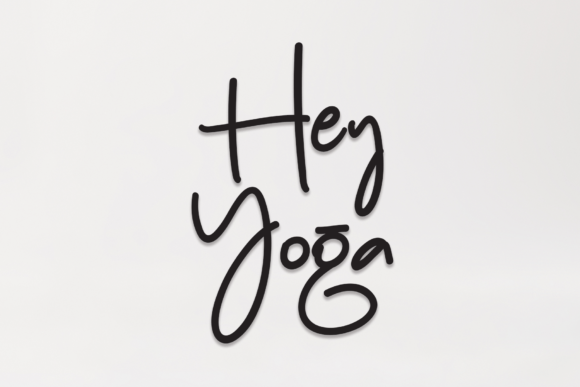
Behold, the enchanting Hey Yoga Font, a script font family that exudes elegance and charm. Designed by the creative genius Roronoa zoro.S.P.D, this font is a masterpiece that will elevate your designs to new heights.
Picture this: your wedding invitations adorned with the flowing letters of Hey Yoga, the words dancing across the page like a delicate calligraphy. Your social media posts and logos transformed into works of art, captivating your audience with their unique and eye-catching style. The possibilities are endless with Hey Yoga Font.
Hey Yoga's versatility knows no bounds. Whether you're creating wall displays, designing product packaging, or crafting stunning labels, this font will add a touch of sophistication and charm to your projects. Its handwritten taste lends a personal touch that resonates with your audience, creating a connection that goes beyond words.
Imagine your products adorned with Hey Yoga's beautiful characters, standing out on shelves and capturing the attention of potential customers. Your designs will exude a sense of exclusivity and craftsmanship, making your products irresistible.
Step into a world of creativity and let Hey Yoga Font guide you. Its elegant curves and flowing lines will transform your designs into masterpieces, leaving a lasting impression on your audience. Don't settle for ordinary fonts; embrace the magic of Hey Yoga and unlock your true creative potential.